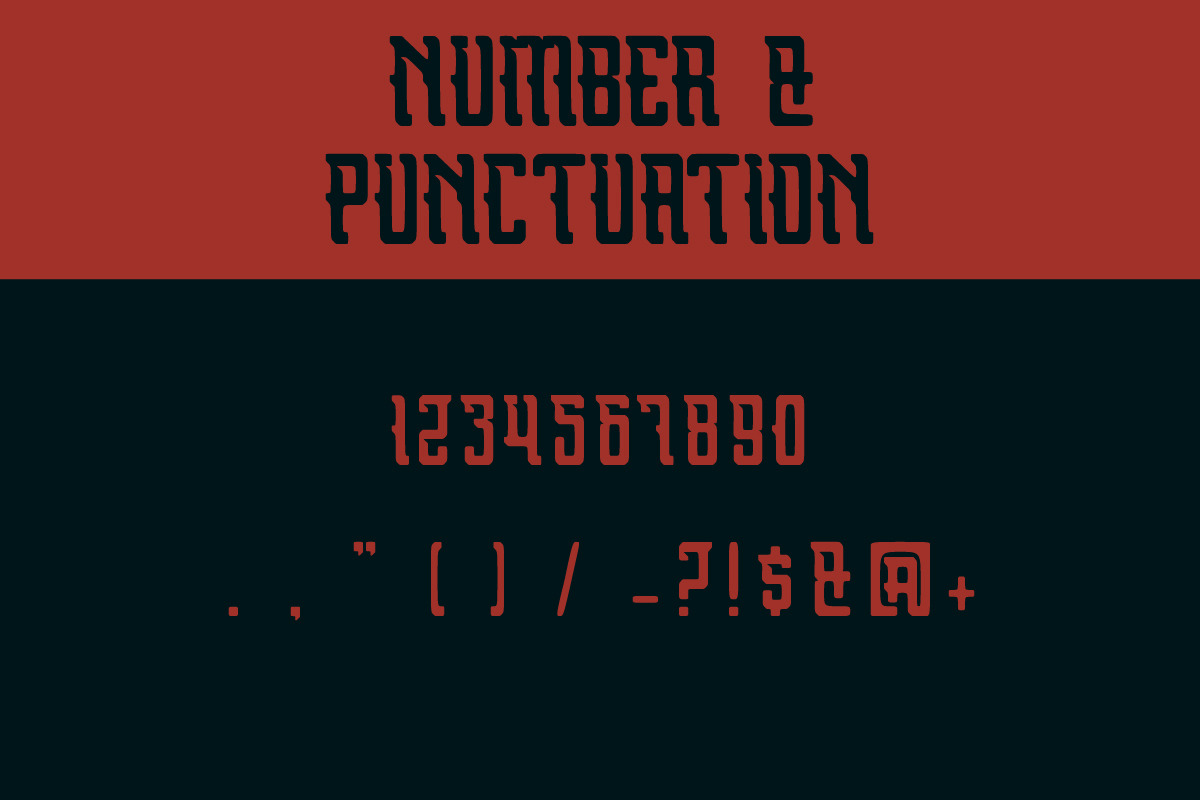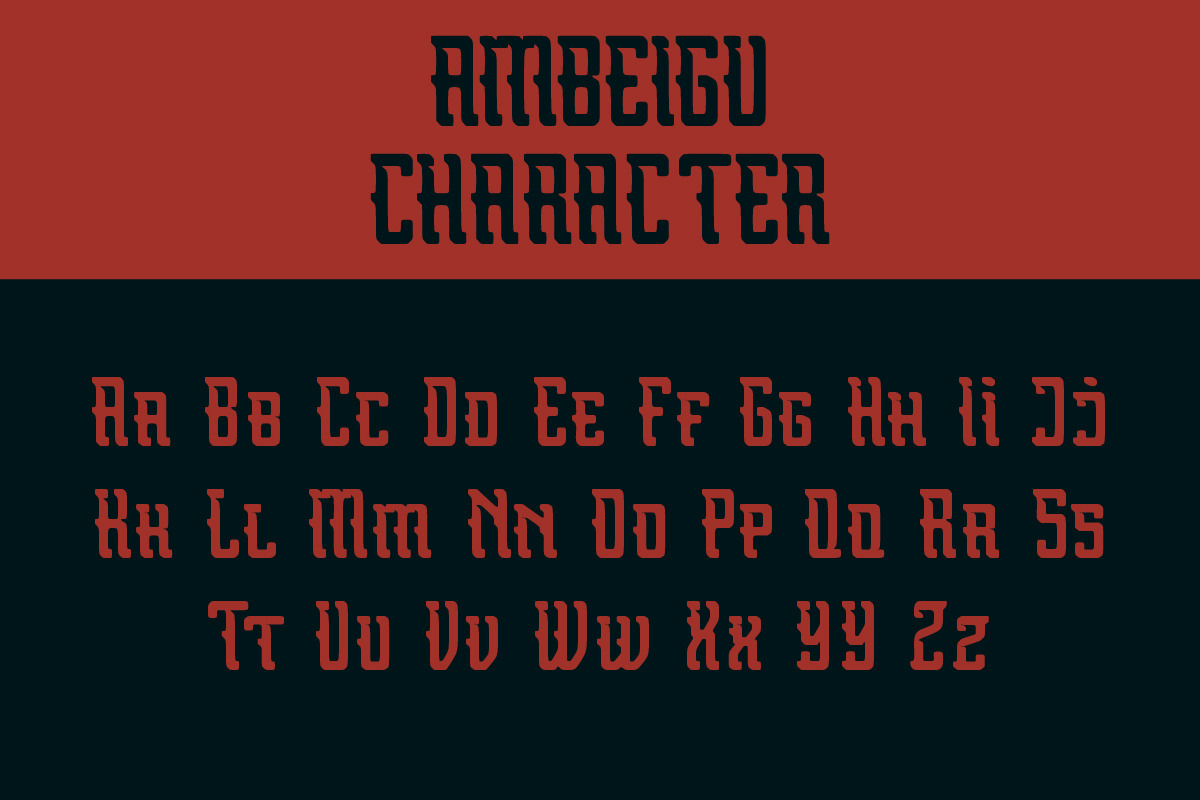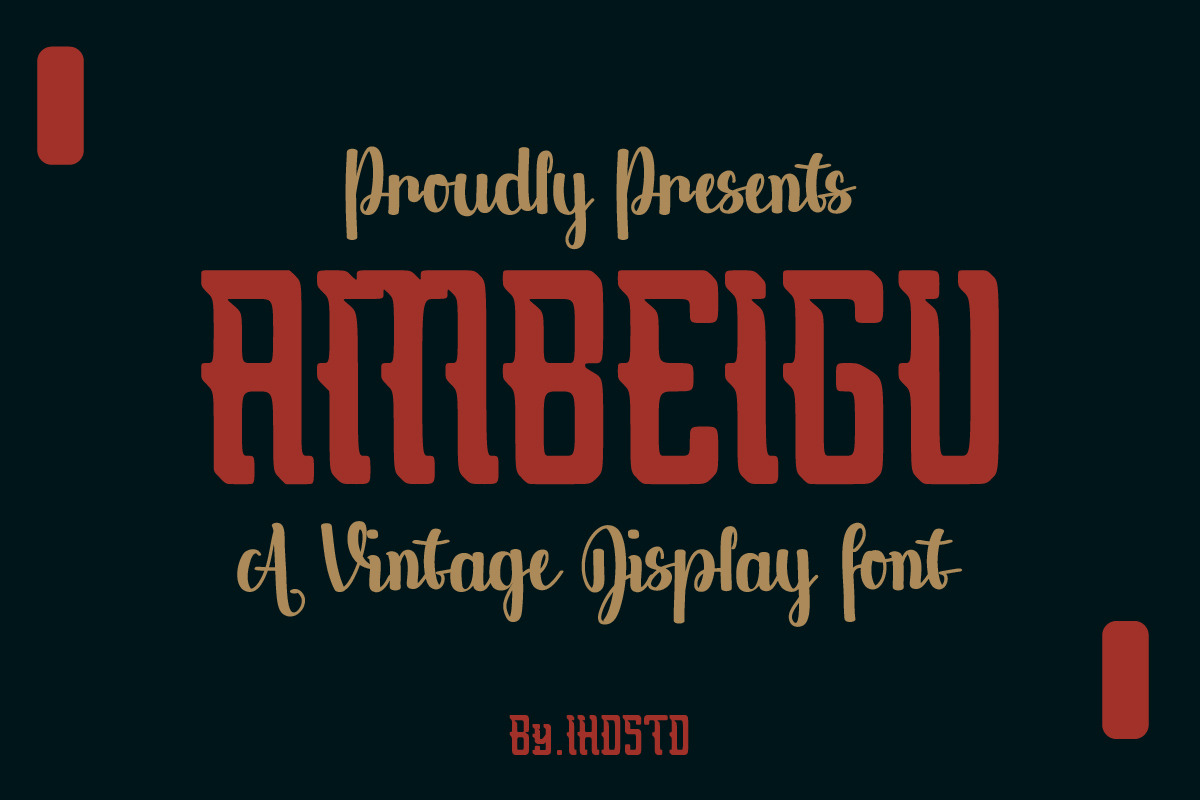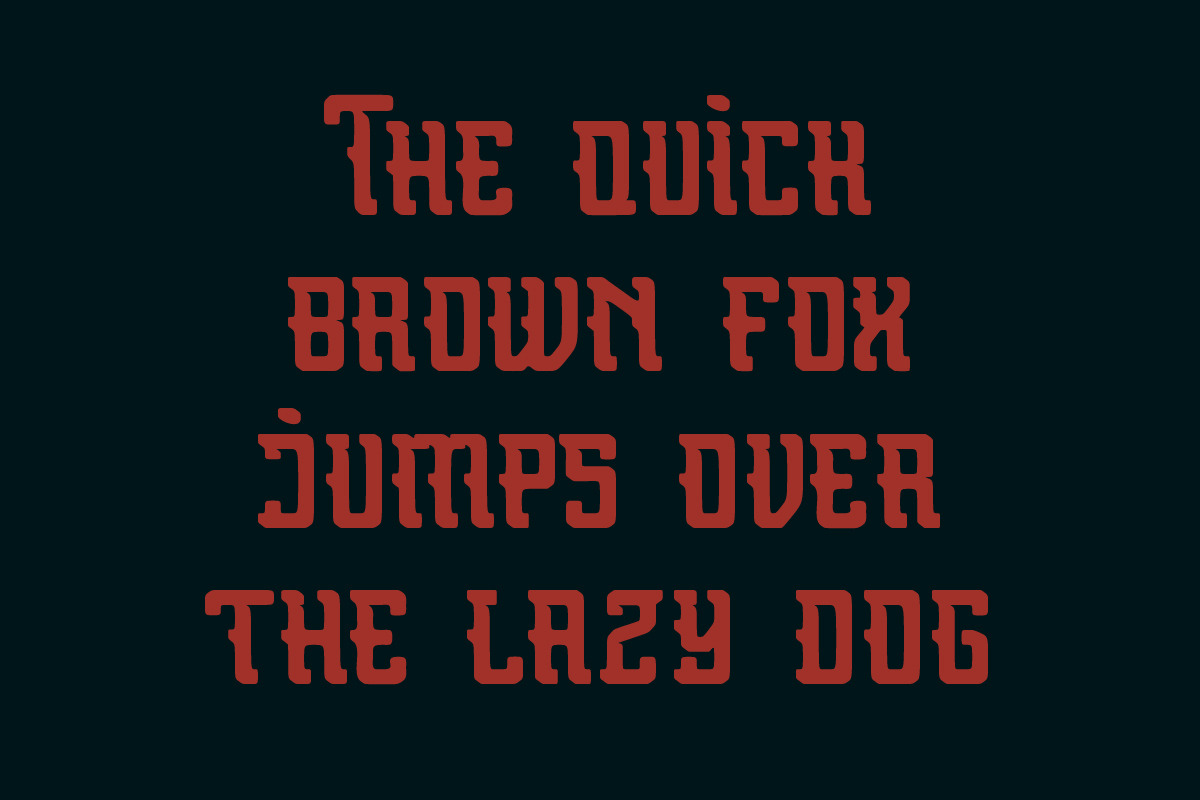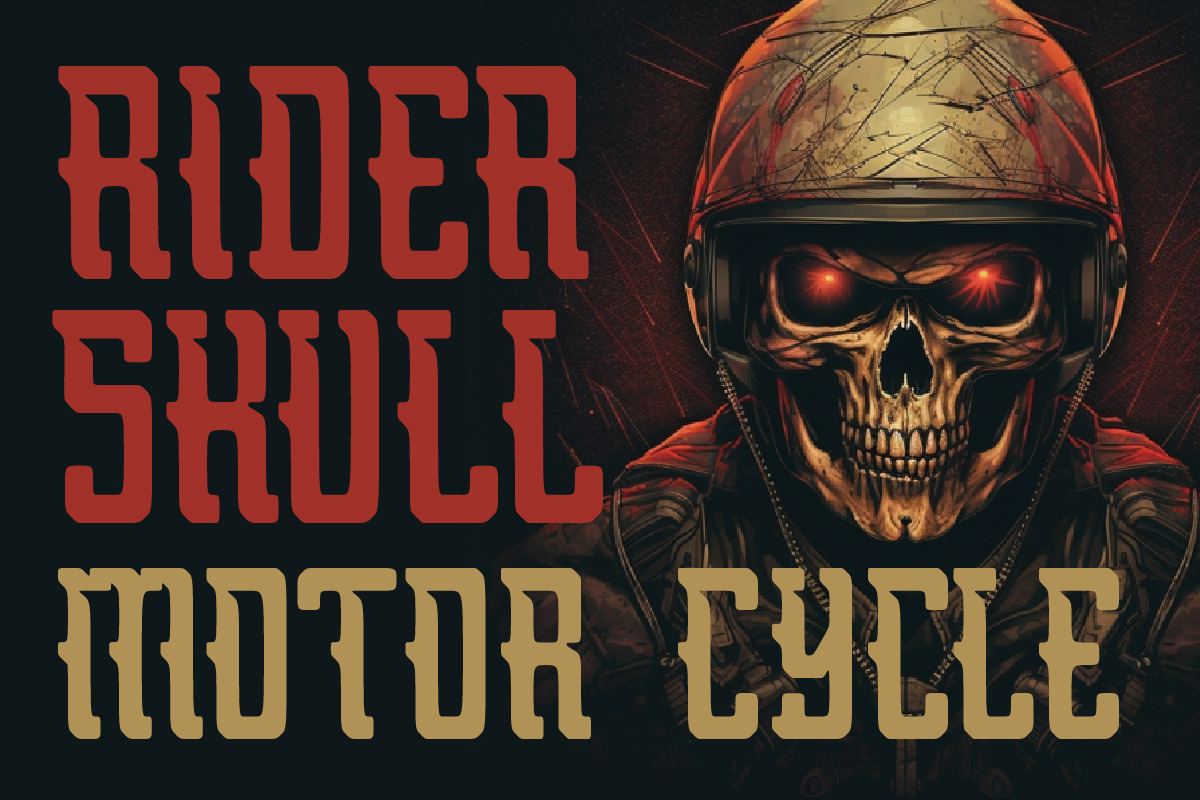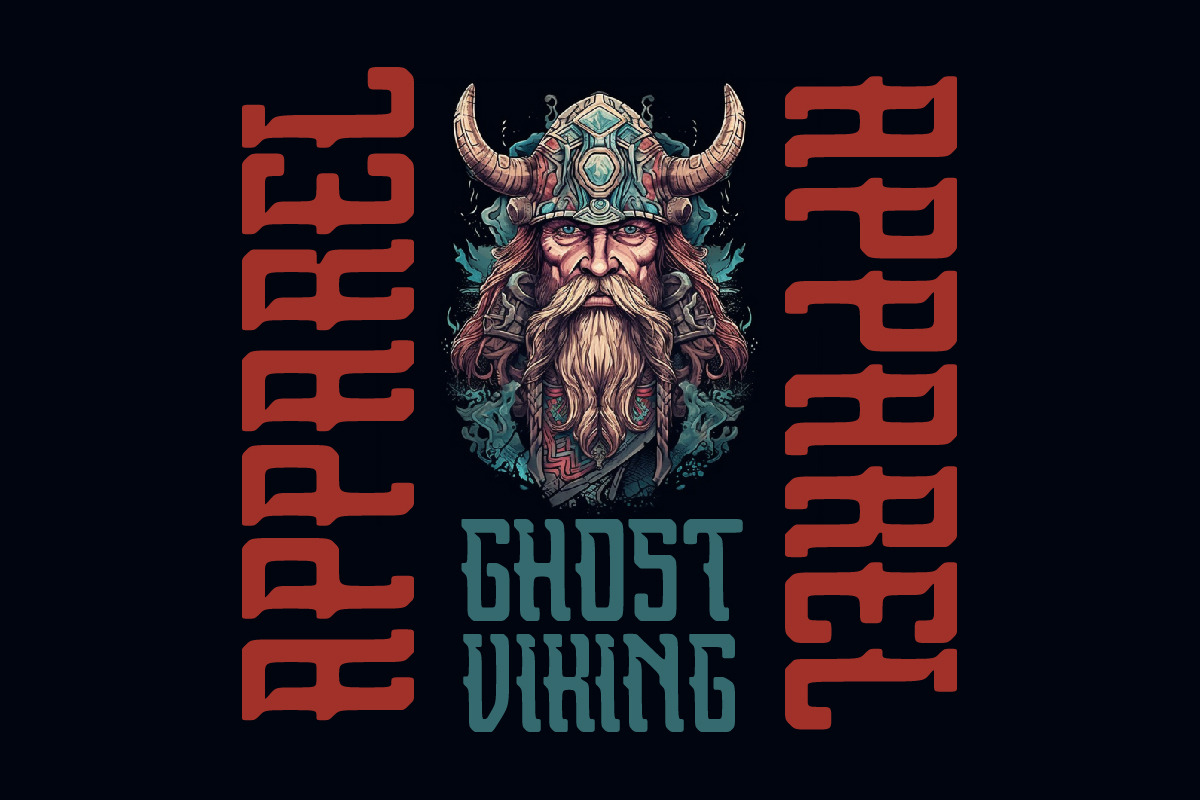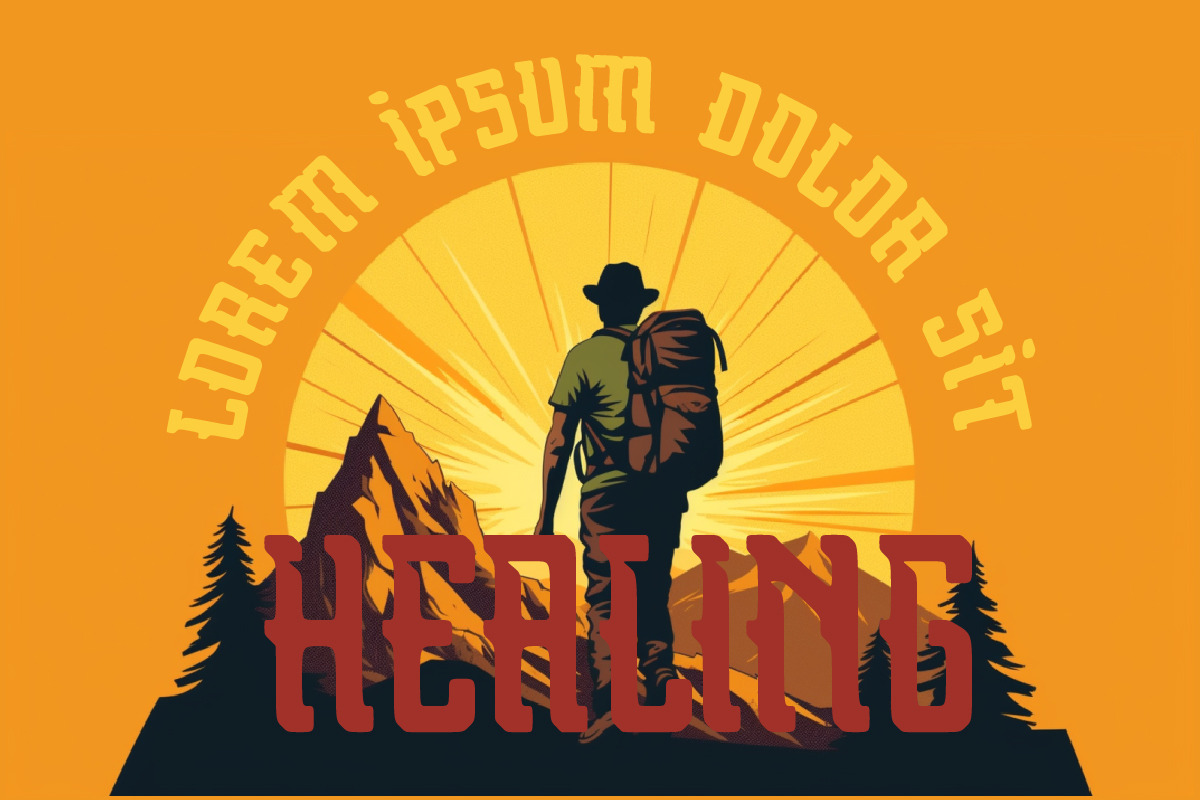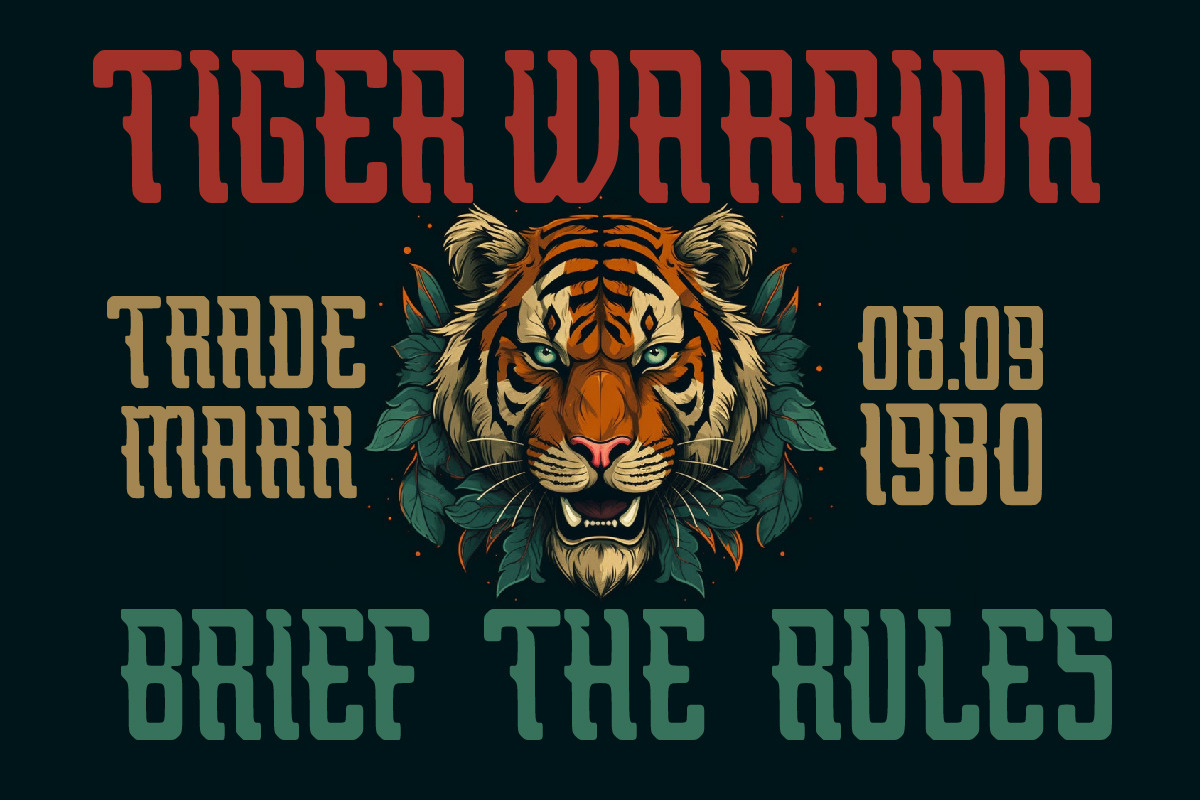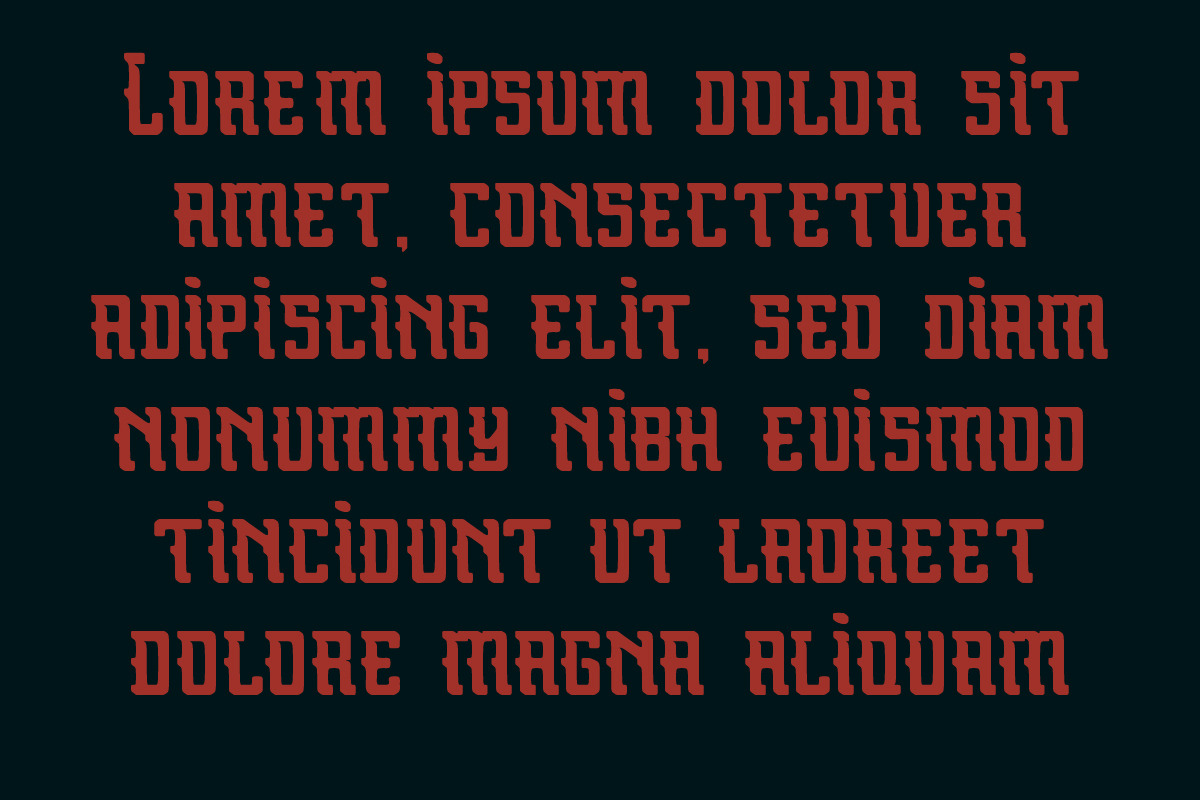
Ambeigu Vintage Display Font
Ambeigu is perfect for most all aspects of graphic design, from creating a unique display layout, a quirky logo design and even long-form content. Download now and go get adventurous!